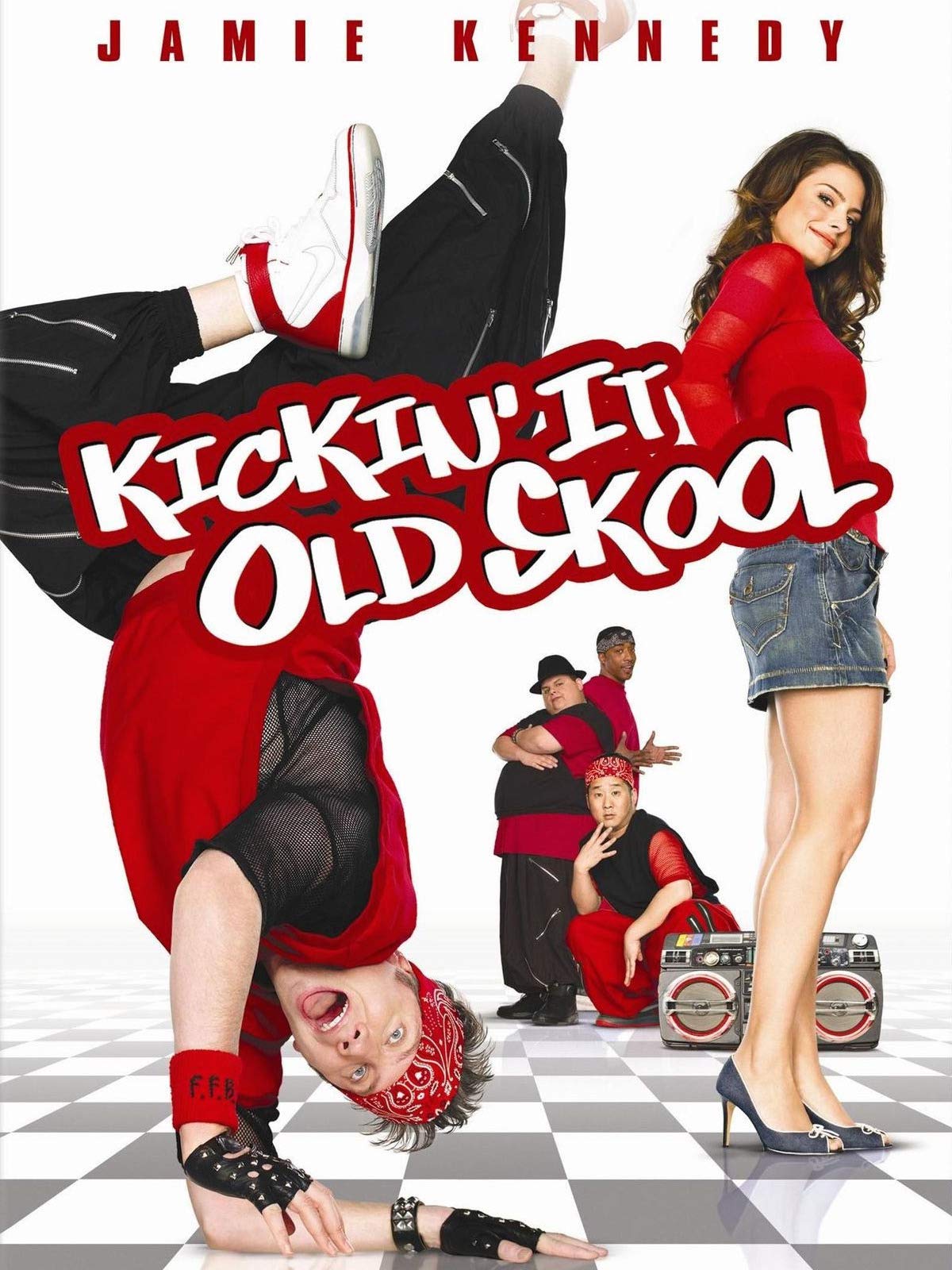
Kickin' It Old Skool Font
ComedyKickin’ It Old Skool is a 2007 comedy film starring Jamie Kennedy as a young man who wakes up from a 20-year coma and struggles to adapt to modern society while reliving his love for breakdancing.